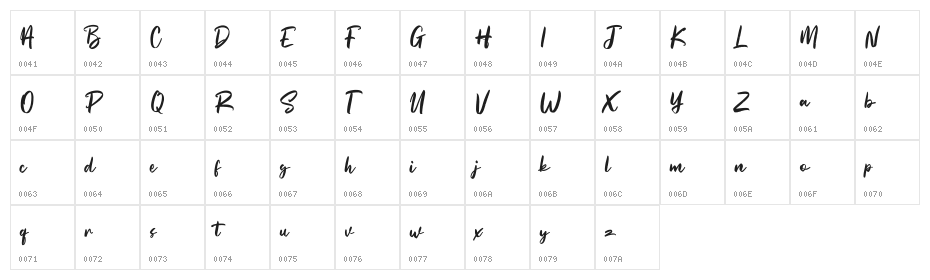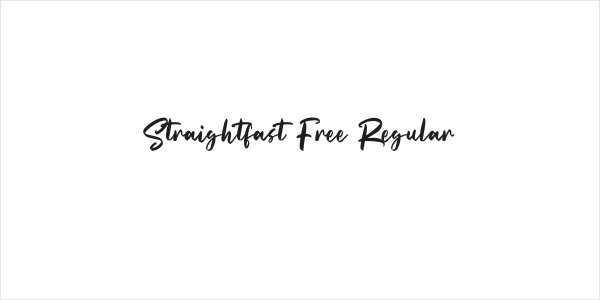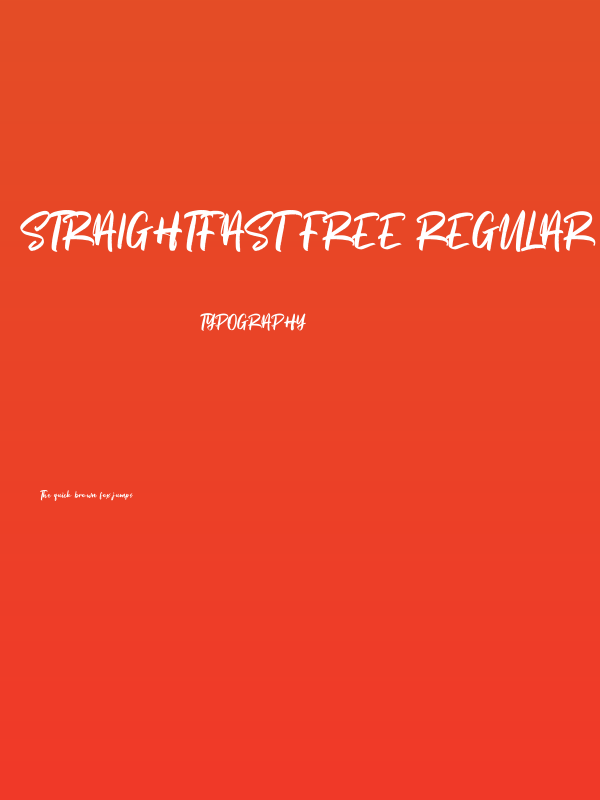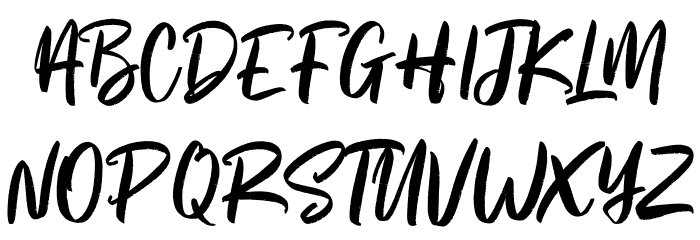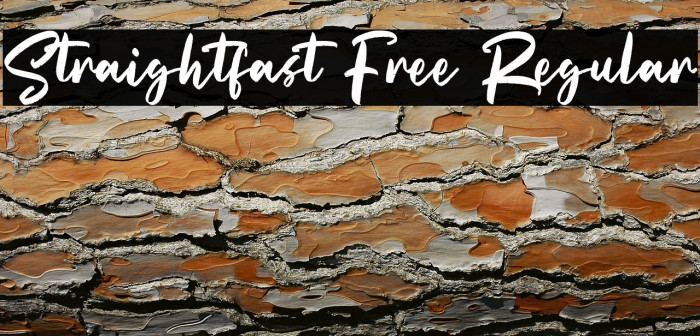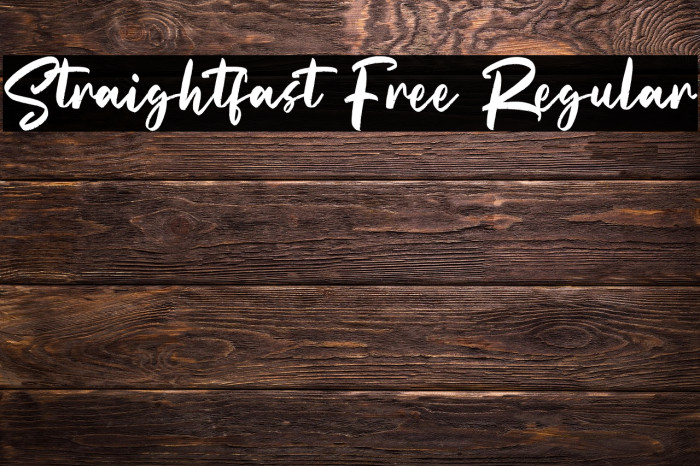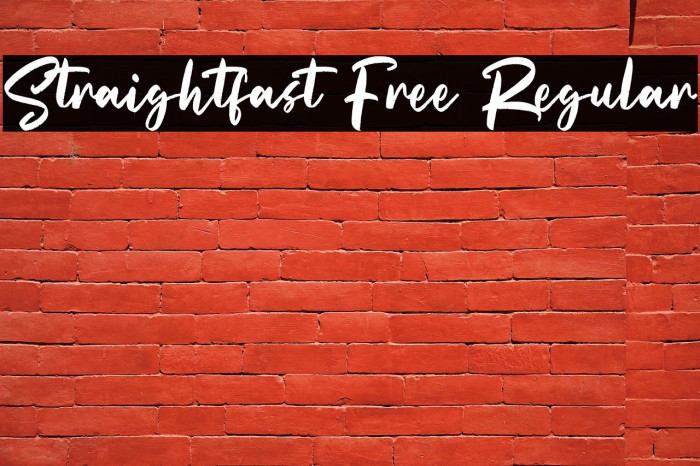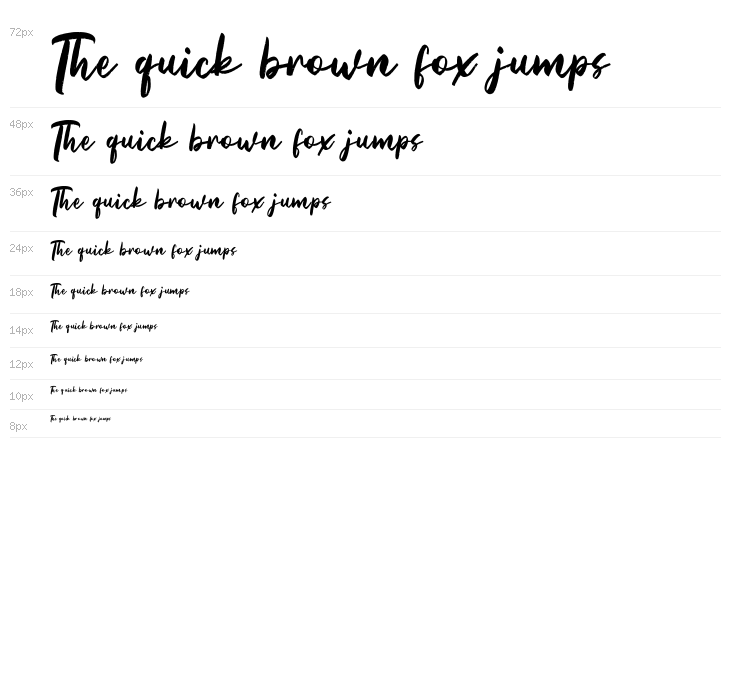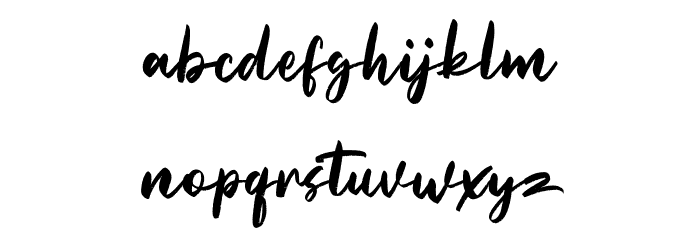
Straightfast Free Regular Font
Straightfast Free Regular Description
This font features a bold and expressive handwritten style, characterized by its fluid strokes and dynamic curves. The uppercase letters are particularly striking, with a sense of movement and energy that makes them stand out. The lowercase letters maintain a consistent flow, complementing the uppercase with their smooth and connected forms. The overall appearance is both modern and artistic, making it suitable for creative projects. The font's playful yet sophisticated nature lends itself well to a variety of design applications, from branding to personal projects.
| Proposed Projects | Ideal for branding, invitations, posters, and social media graphics. |